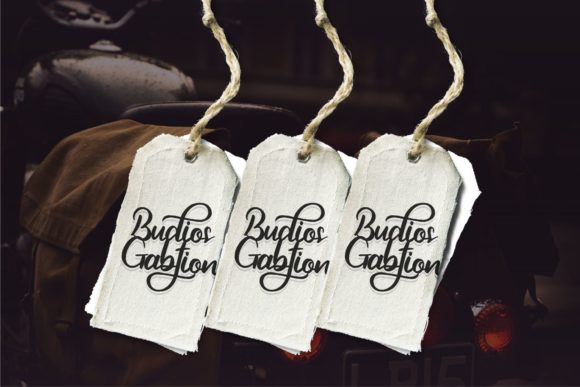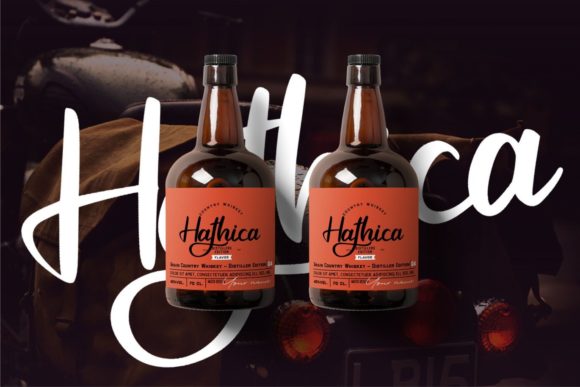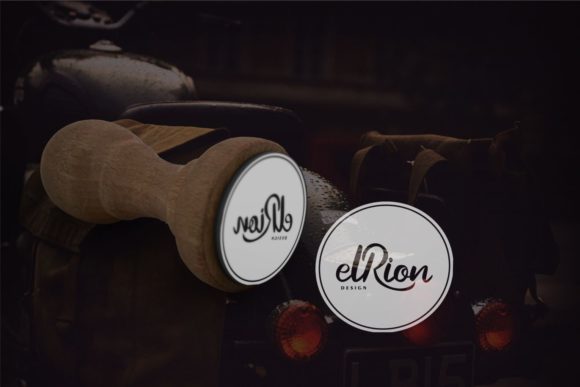
Introduction to OstRide Font
OstRide is an elegant script font with a contemporary atmosphere and impeccable form, inspired by timeless classic calligraphy.
Not too thin and not too thick, balanced and varied, this font was designed to enhance the beauty of your projects .